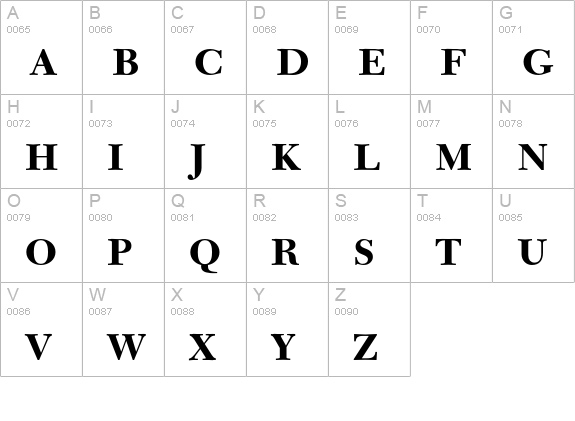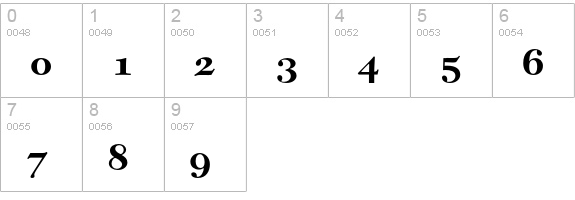
New Caledonia Bold Small Caps & Old Style Figures Font Details
New Caledonia Bold Small Caps & Old Style Figures is a strong, high-contrast variant in the New typeface family \xE2\x80\x94 well suited to headlines, attention-grabbing titles, and strong calls-to-action.
New Caledonia Bold Small Caps & Old Style Figures font is a versatile and elegant typeface that combines the classic charm of old-style figures with the modern twist of small caps. Its bold weight makes it perfect for headlines, titles, and other attention-grabbing text, while the small caps and old-style figures add a touch of sophistication to any design. This font is not only visually appealing but also incredibly functional, making it suitable for a wide range of projects and applications. Whether you're designing a poster, a website, or a branding project, New Caledonia Bold Small Caps & Old Style Figures font will bring a sense of style and professionalism to your work. And the best part? This font is completely free to download at FontsMarket.com, allowing you to enhance your designs without breaking the bank. Don't miss out on this opportunity to elevate your typography game with New Caledonia Bold Small Caps & Old Style Figures font!